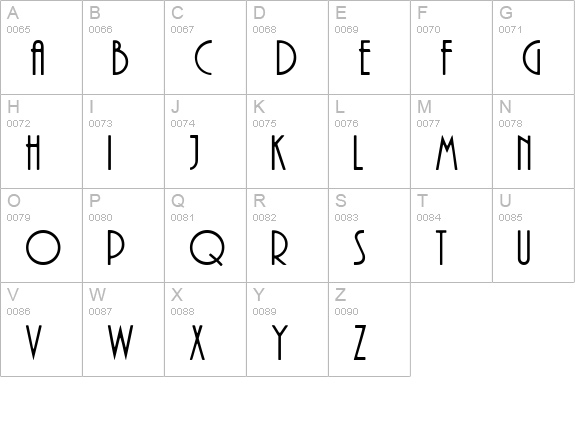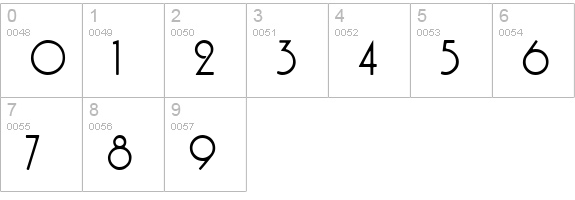
Aprille Display Caps SSi Font Details
Aprille Display Caps SSi font is a unique and elegant typeface that exudes sophistication and style. With its sharp, modern design and eye-catching display caps, this font is perfect for adding a touch of luxury to any project. Whether you're designing a logo, branding materials, or invitations, Aprille Display Caps SSi font is sure to make a statement. Best of all, this font is available for free download at FontsMarket.com. Take advantage of this fantastic offer and elevate your designs with the timeless beauty of Aprille Display Caps SSi font. Download it today and unleash your creativity with this exquisite typeface.